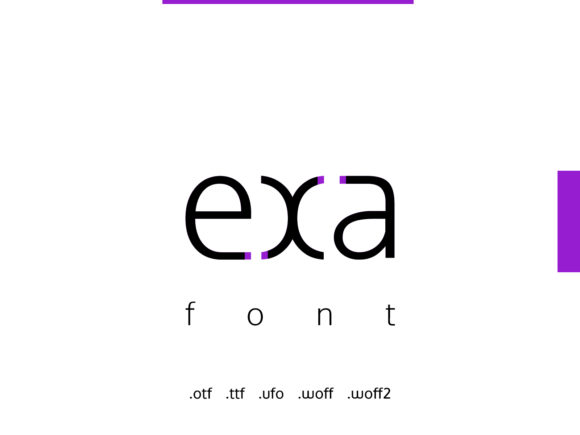
When looking for a font that exudes simplicity and minimalism, Exa Font should be your top pick. Its sans serif design evokes feelings of sincerity and ease, lending an air of sophistication to any design project. The natural and casual vibe of this font makes it a perfect fit for a wide range of creative endeavors, allowing your ideas to shine through effortlessly.
Whether you're seeking to craft captivating branding, design an eye-catching website, or produce stunning social media graphics, Exa Font is your go-to choice. Its versatility extends beyond its visual appeal, as it seamlessly complements flat designs, adding a touch of elegance and modernity that will leave a lasting impression on your audience.